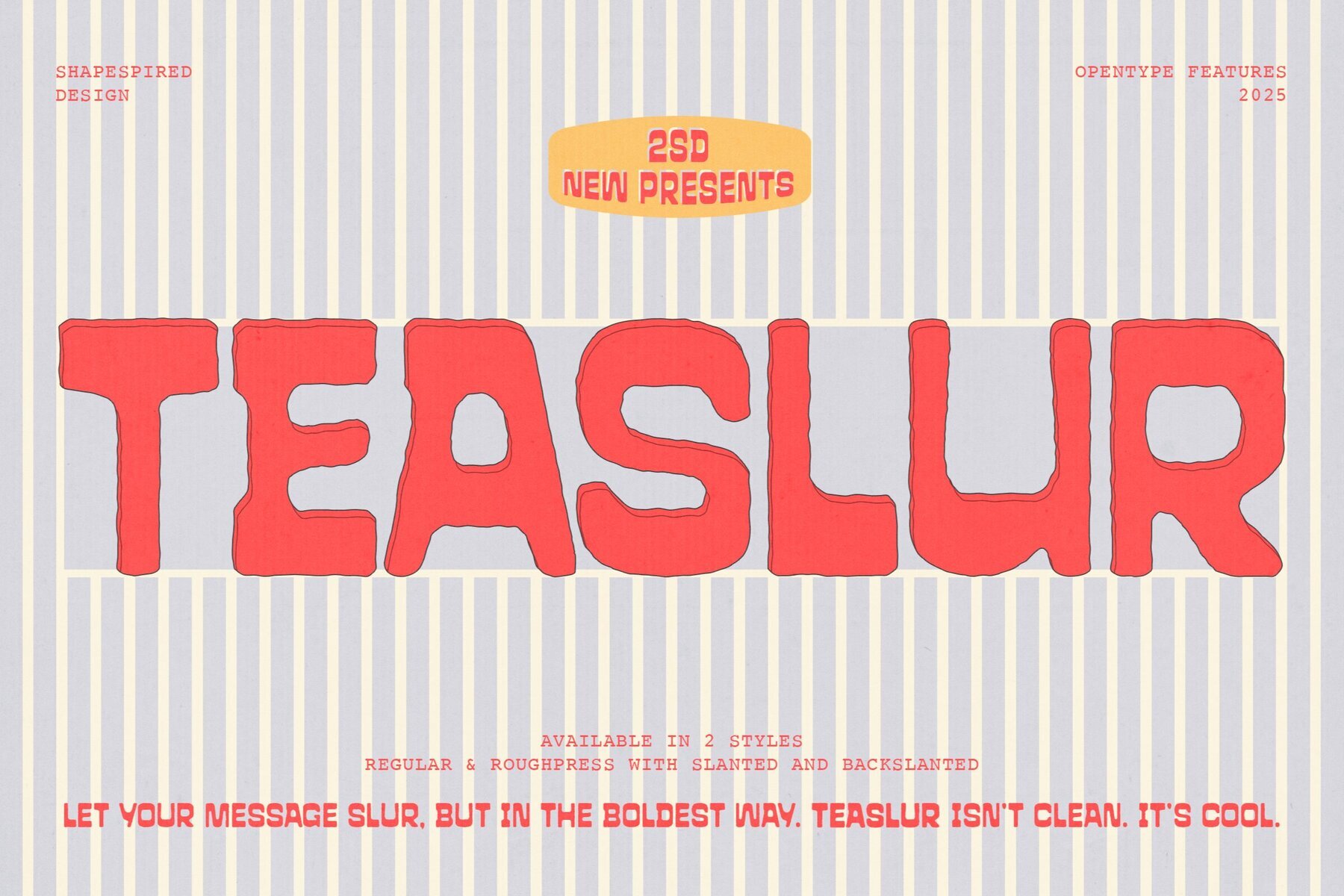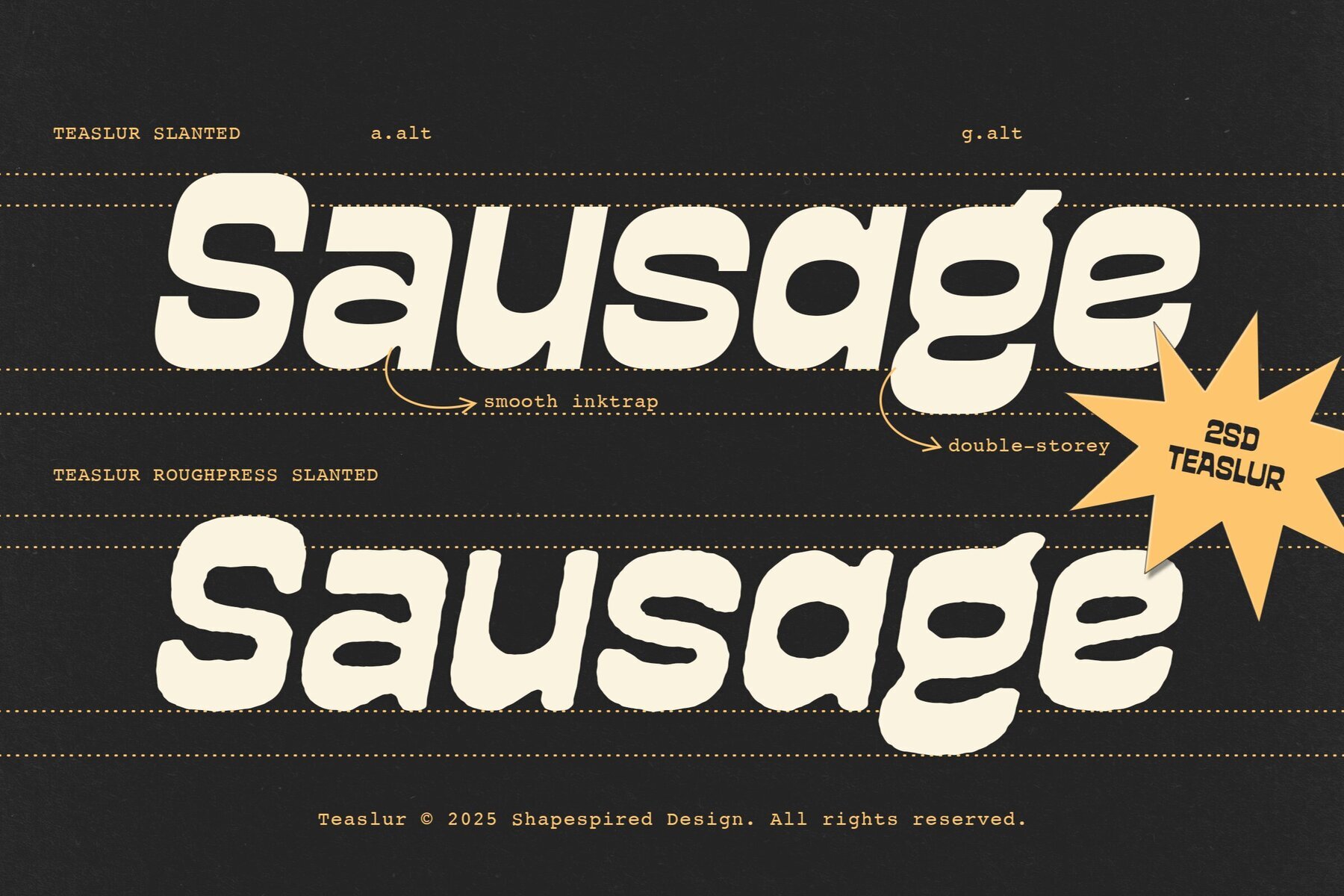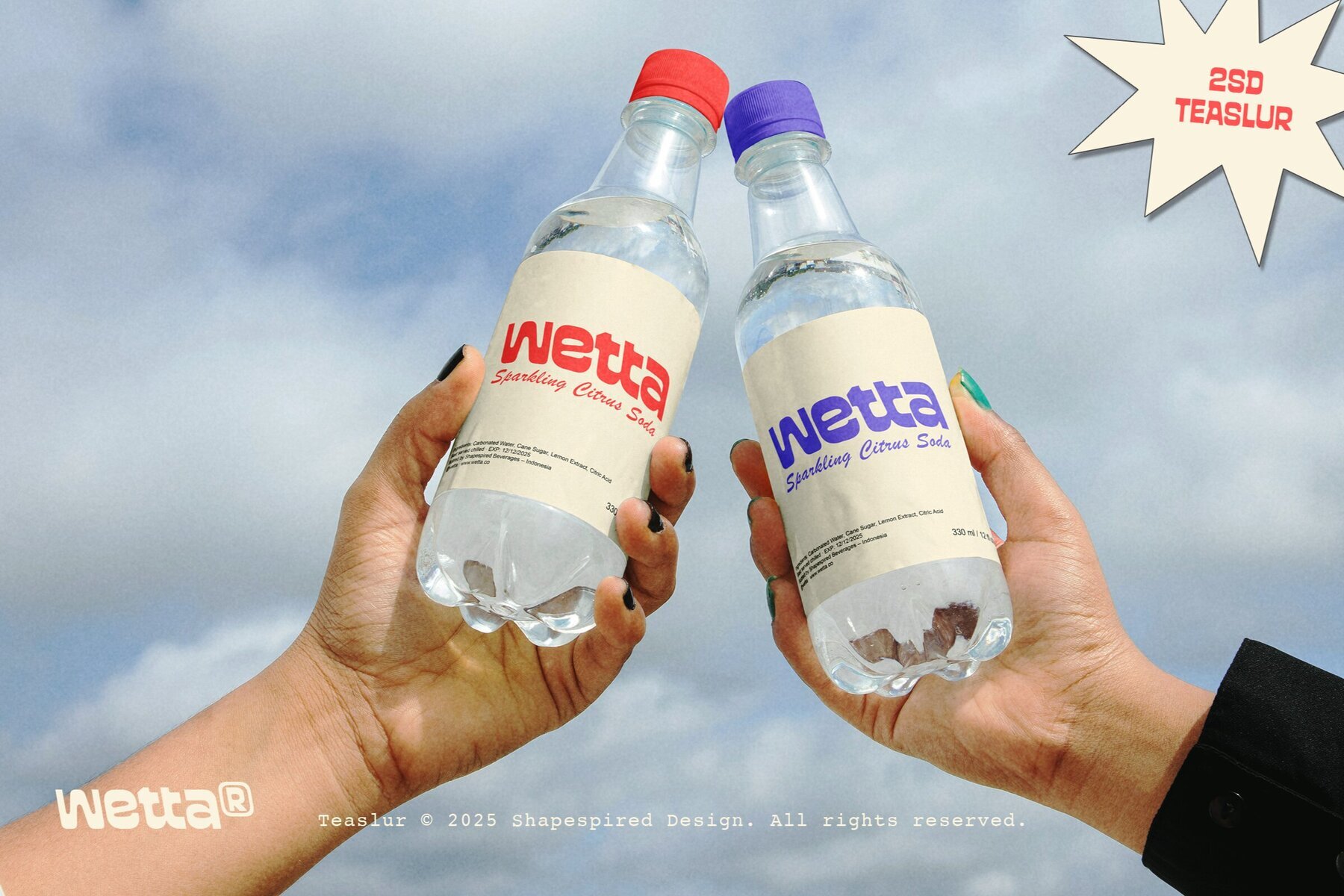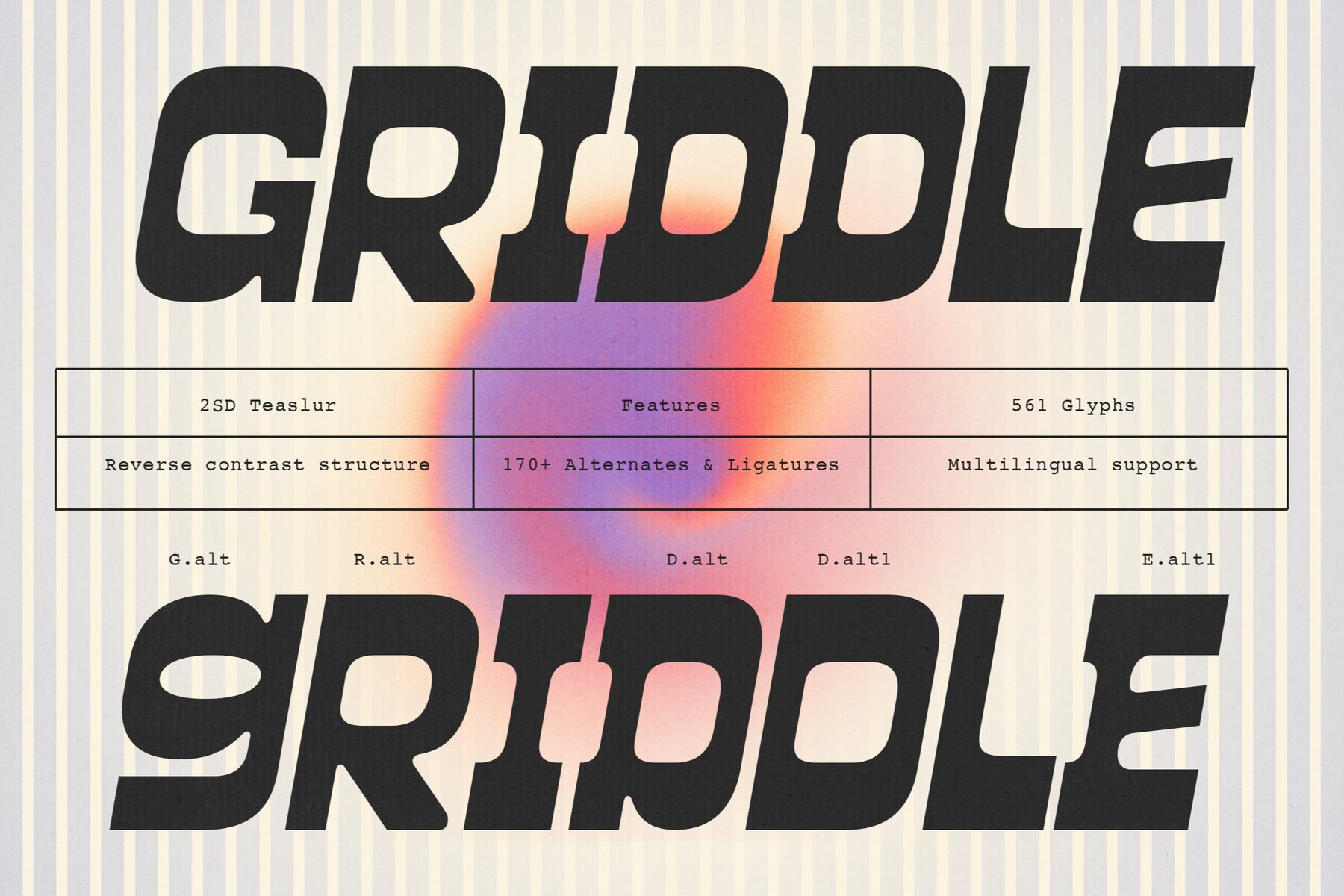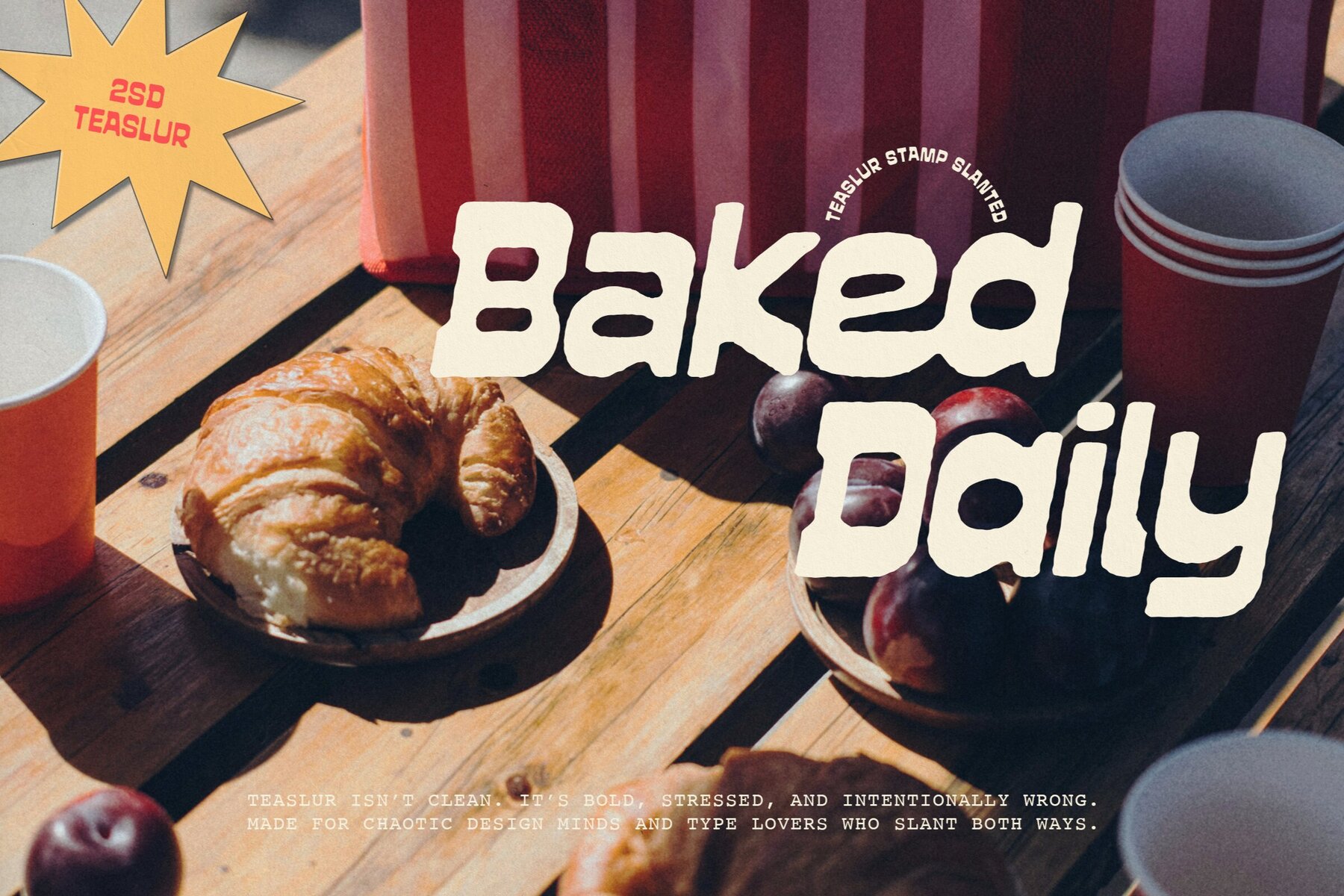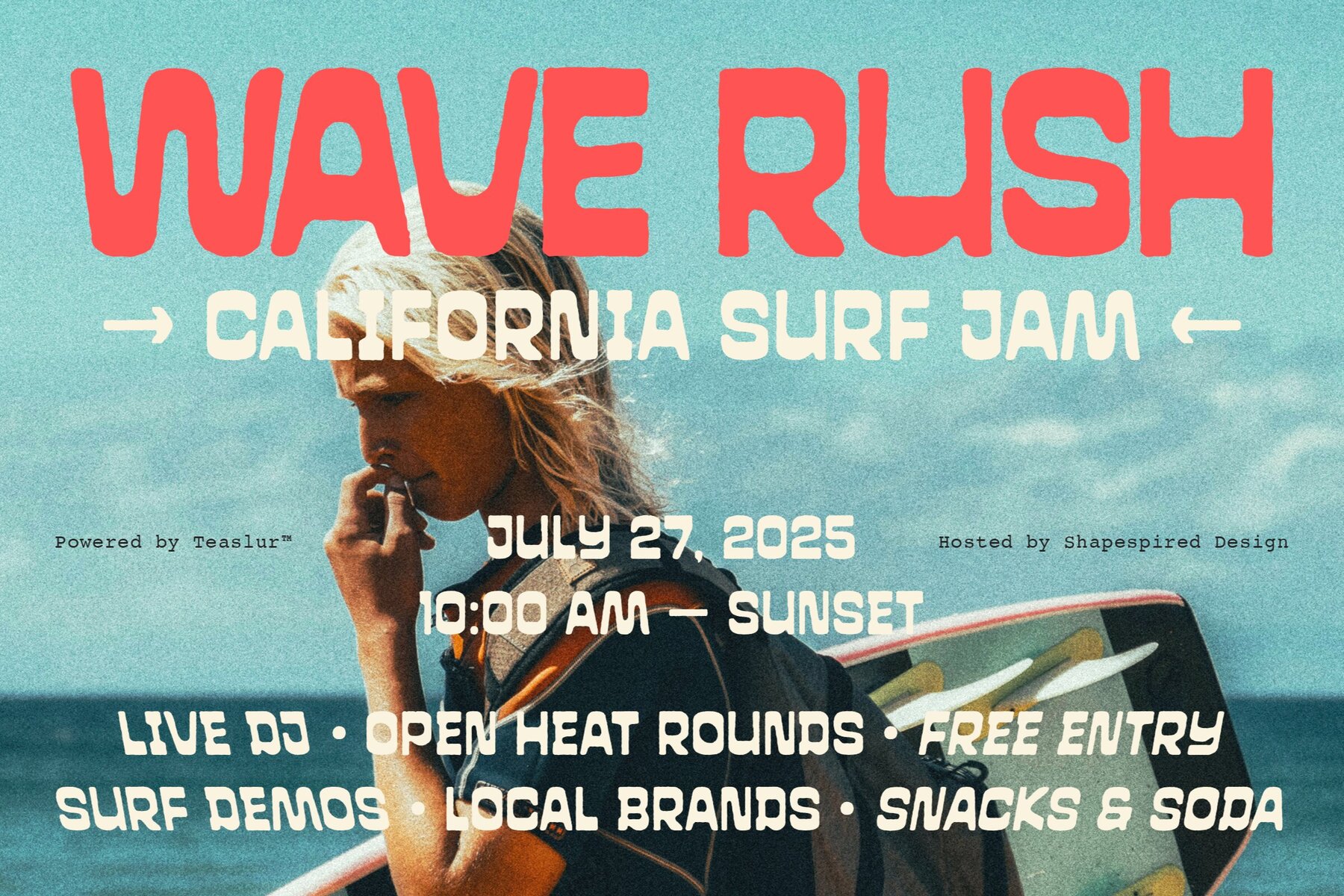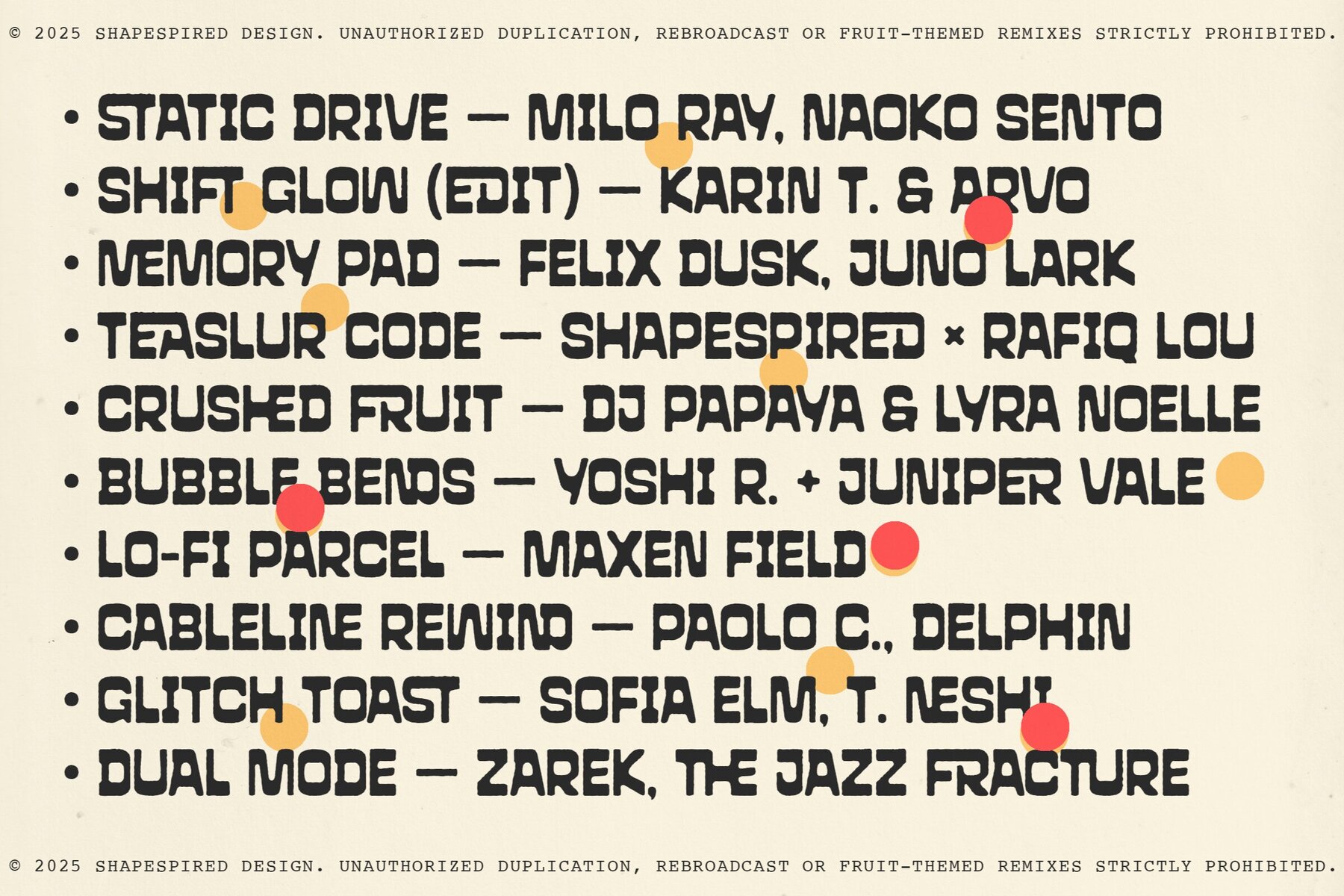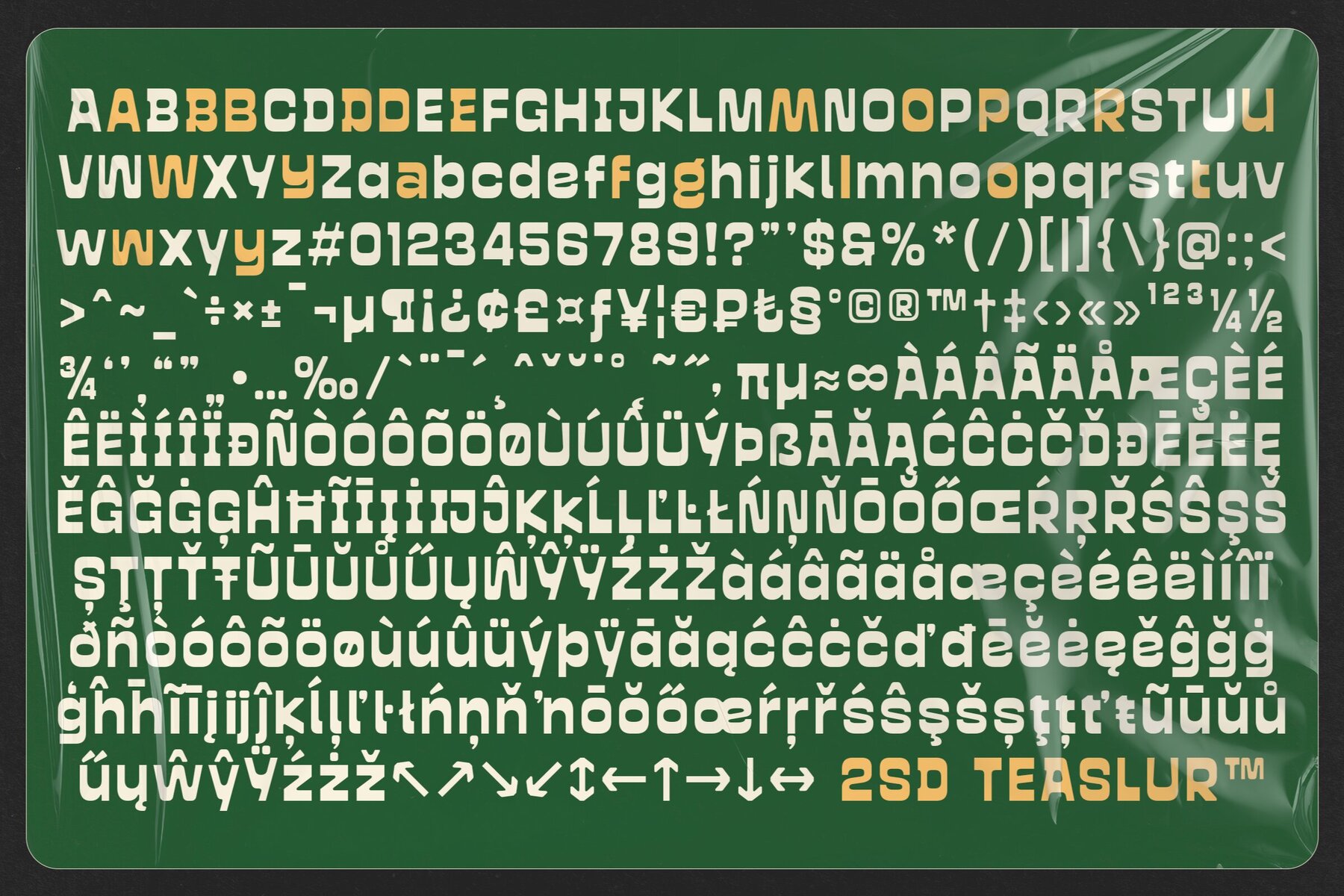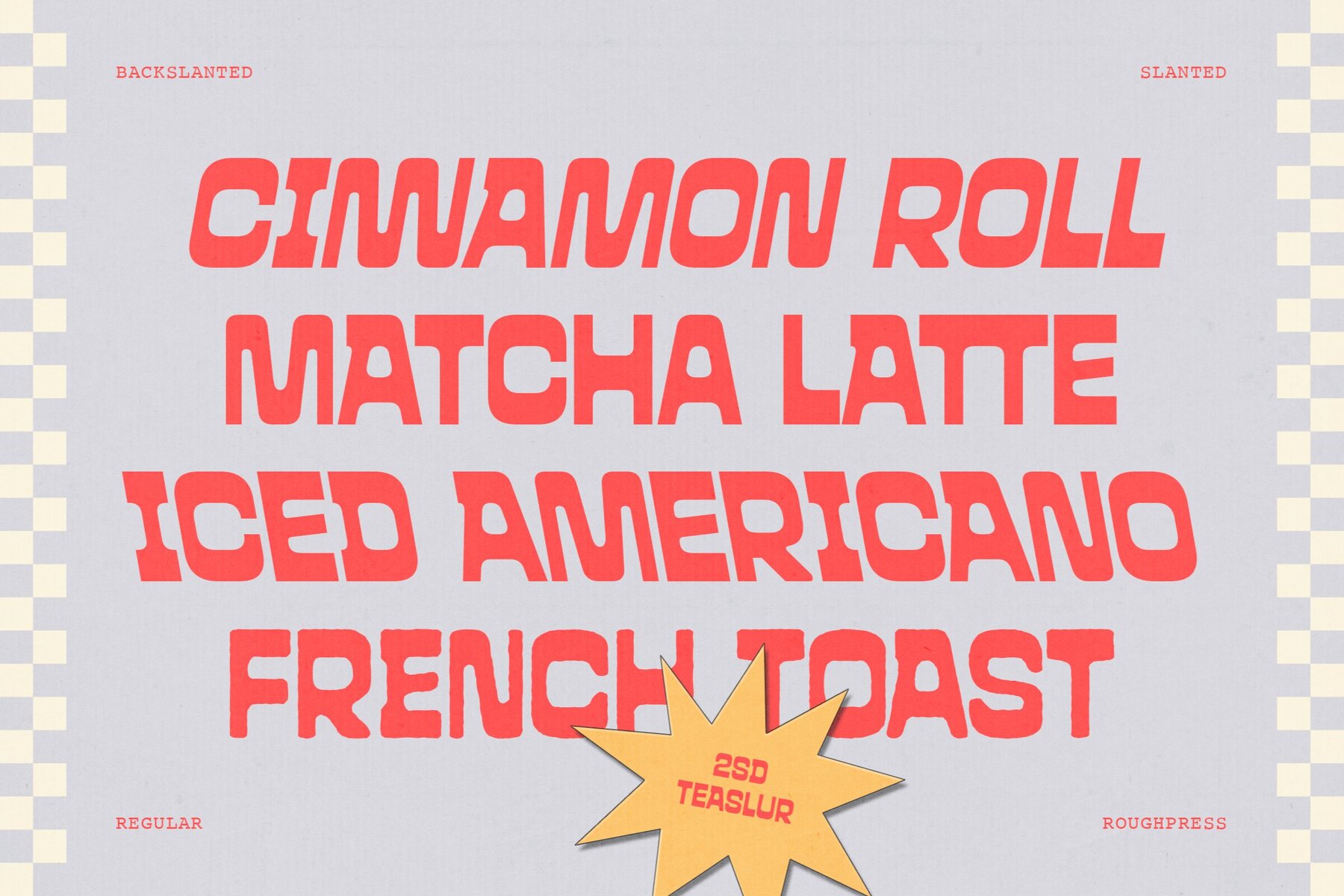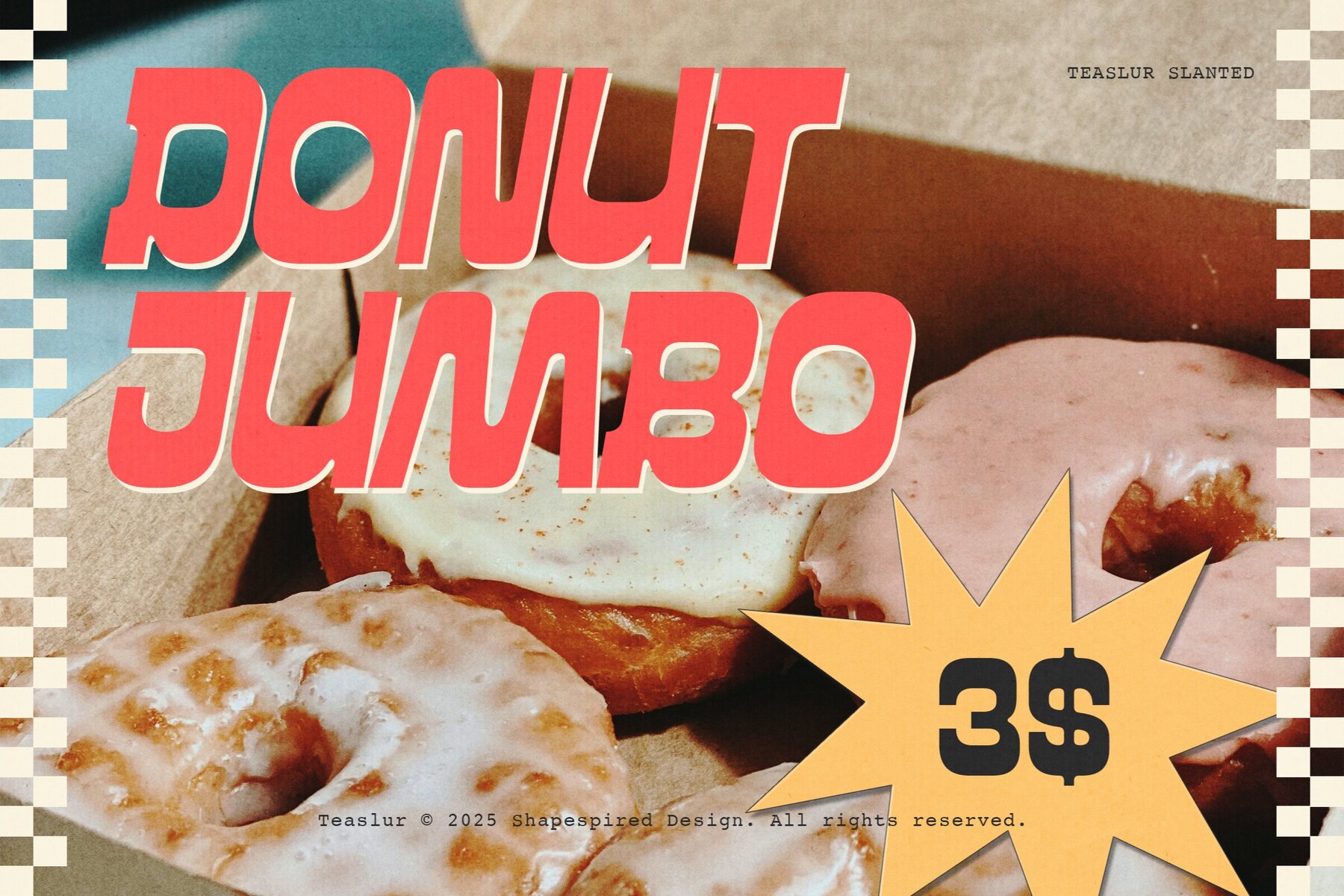
Teaslur Font
Teaslur Regular
Teaslur Backslanted
Teaslur Roughpress
Teaslur Roughpress Backslanted
Teaslur Roughpress Slanted
Teaslur Slanted
Teaslur is a striking display typeface that combines reverse contrast with modular structures, drawing inspiration from industrial signage and retro aesthetics. The balance of robust architecture and expressive style ensures clarity, modernity, and volume, making it an ideal choice for the bold at heart. With a design tailored for those unafraid to stand out, Teaslur offers dynamic features for creative customization, allowing designers to explore the boundaries of typographical expression. Ideal for diverse applications such as posters, editorial headlines, branding, music artwork, beverage labels, apparel, packaging, retro ads, and social media graphics. Let Teaslur communicate your message with its bold and adaptable form.Teaslur: Bold Modular Typeface for Impactful Design